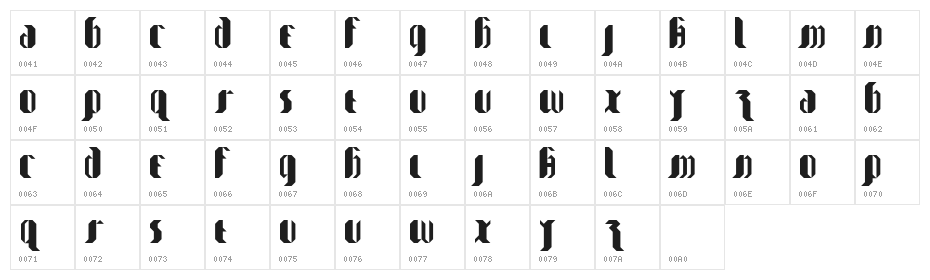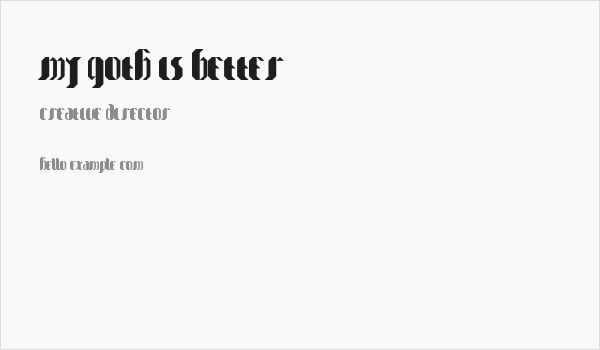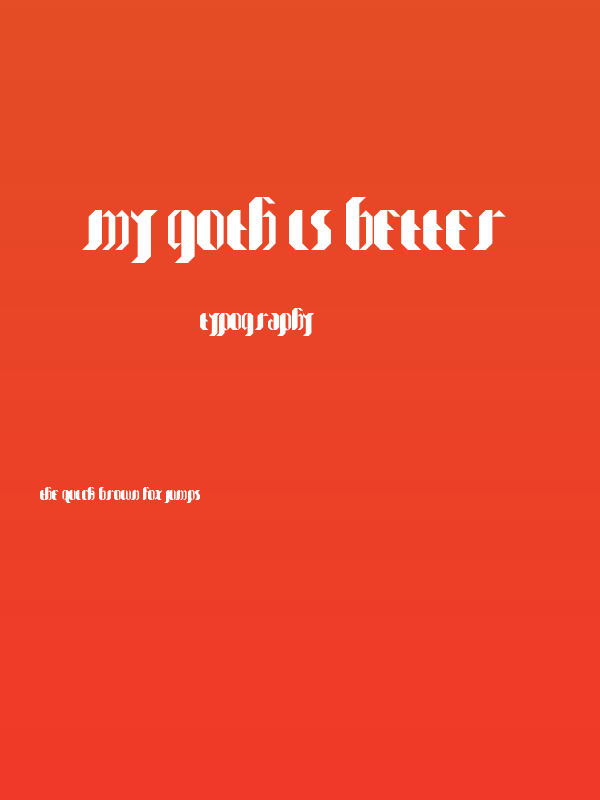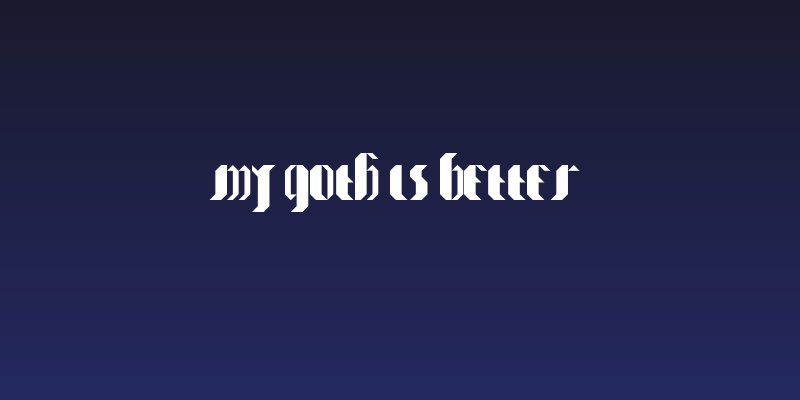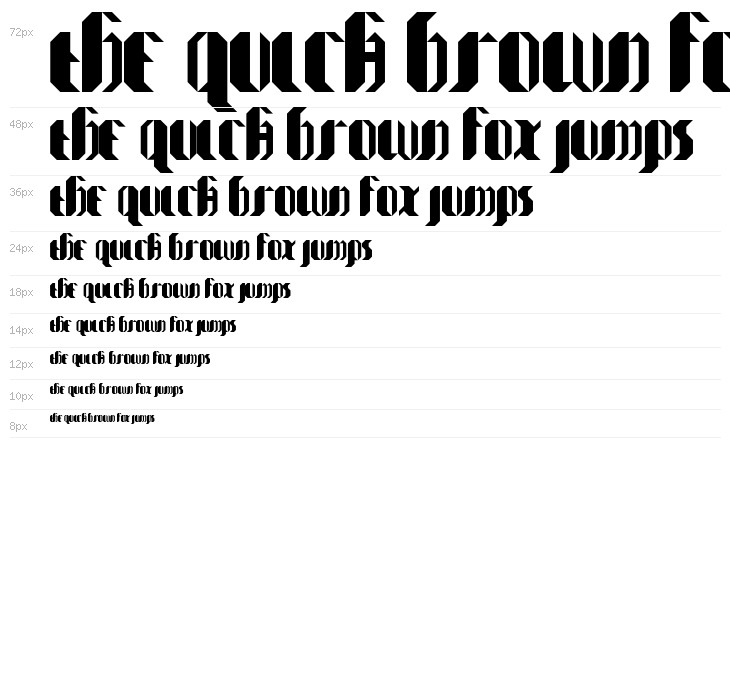
my_goth_is better Font
my_goth_is better Description
This font features a bold, angular design reminiscent of traditional Blackletter styles. The characters are sharply defined with thick strokes and pointed edges, creating a dramatic and impactful appearance. The uppercase and lowercase letters maintain a consistent style, with a strong vertical emphasis and intricate detailing. The font's unique aesthetic is both historical and modern, making it suitable for projects that require a touch of elegance and authority. The spacing between characters is tight, enhancing the cohesive look of the text.
| Proposed Projects | Ideal for use in branding, posters, book covers, and any design that seeks to evoke a sense of tradition and strength. |